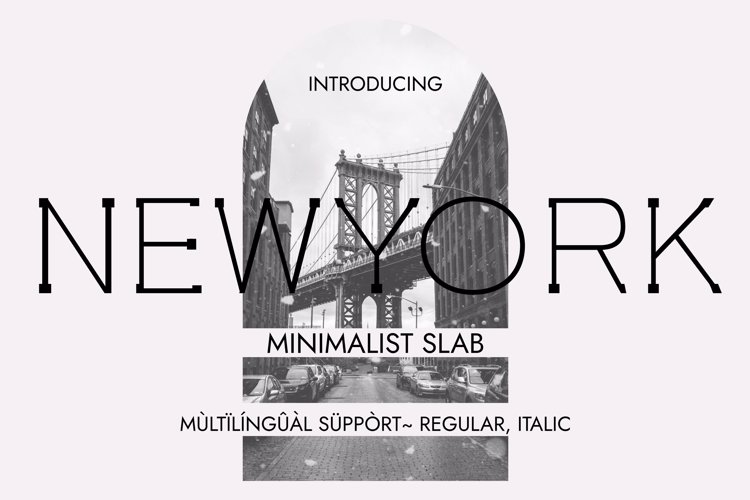
NEWYORK Font
ITALIC Regular Style
🎨 Font Name: NEWYORK by Minimalist Art Studio
🎨 Font Description: New York is a minimalist slab serif with urban elegance and multilingual depth, perfect for editorial, branding, and timeless design statements.
✔ Complete Latin set + multilingual diacritics
✔ Alternates, stylistic sets & ligatures
✔ Numbers, small caps, and extended punctuation
✔ Bonus italics and family styles